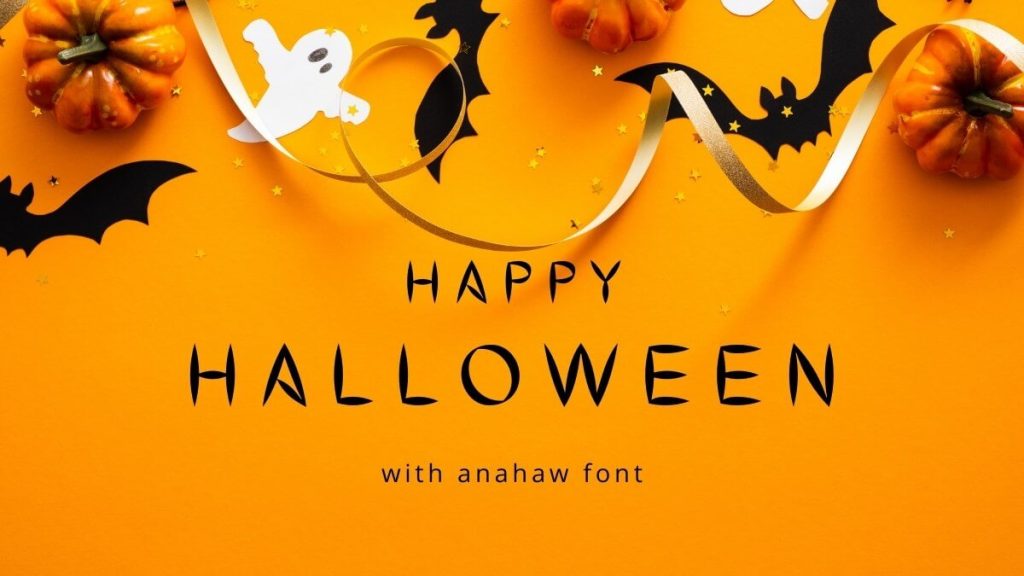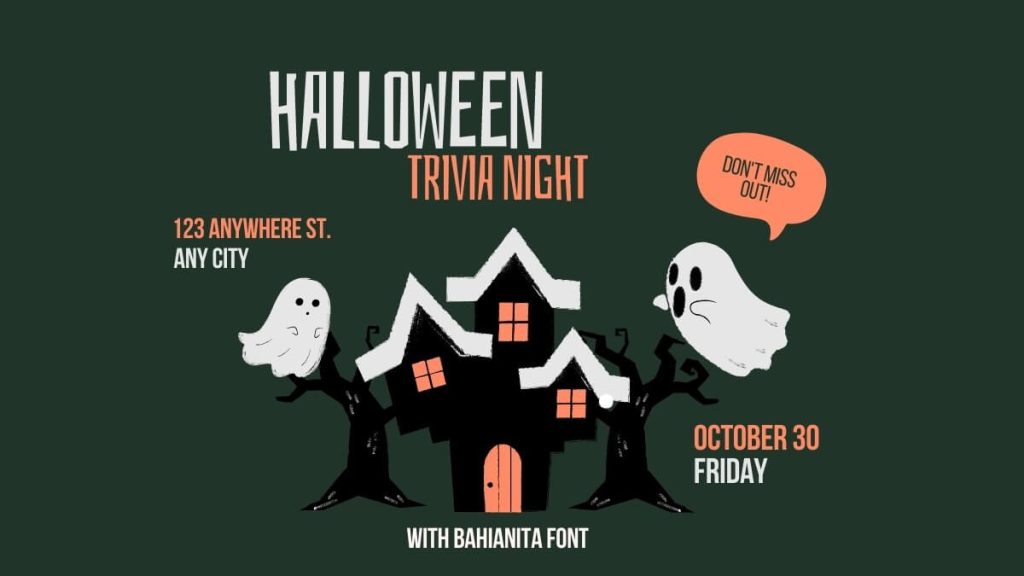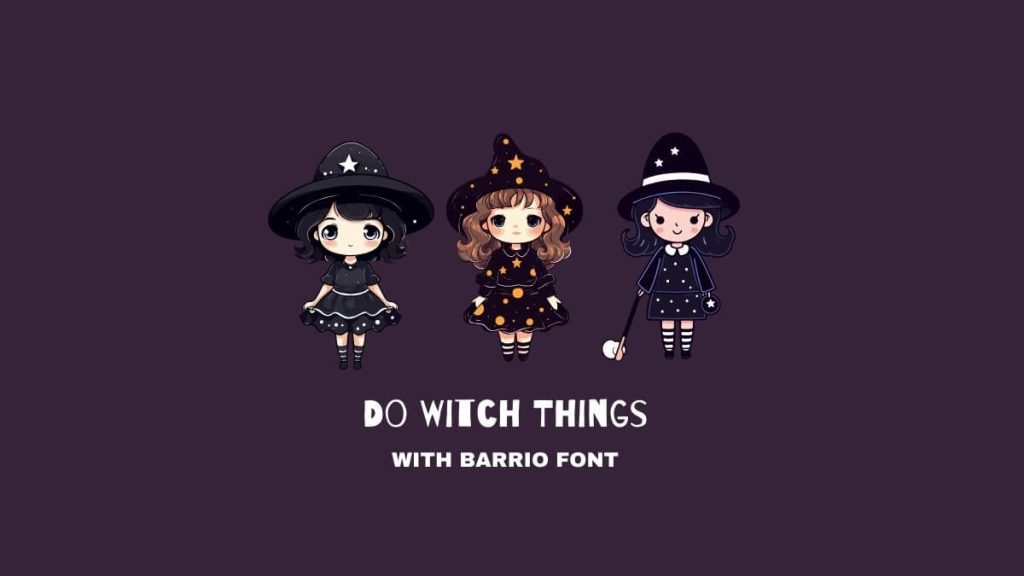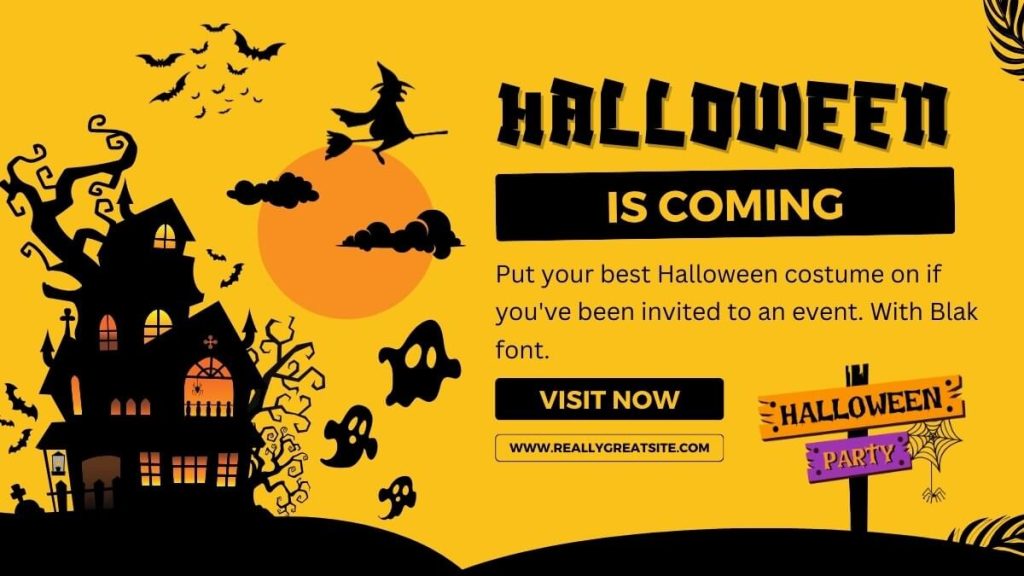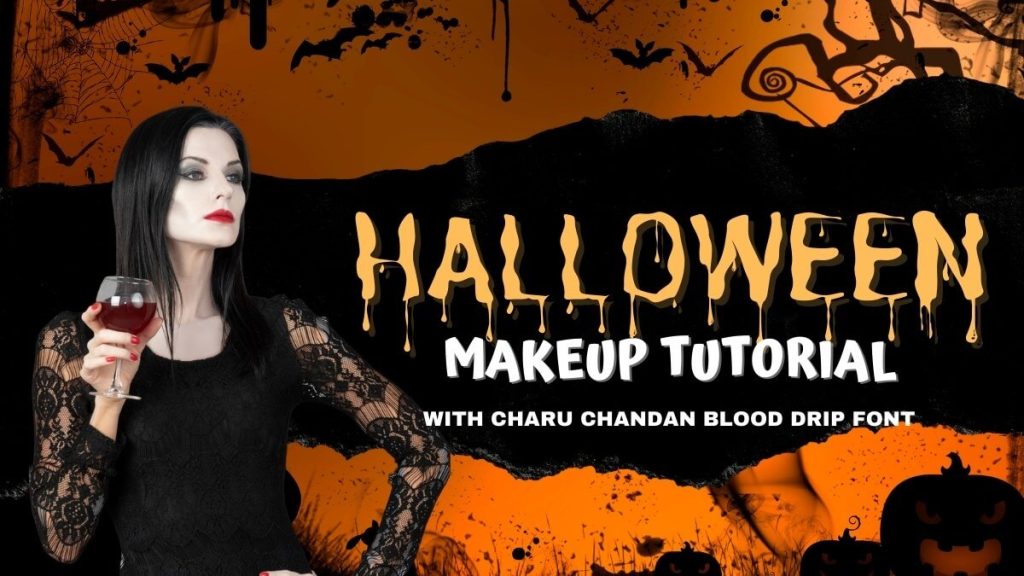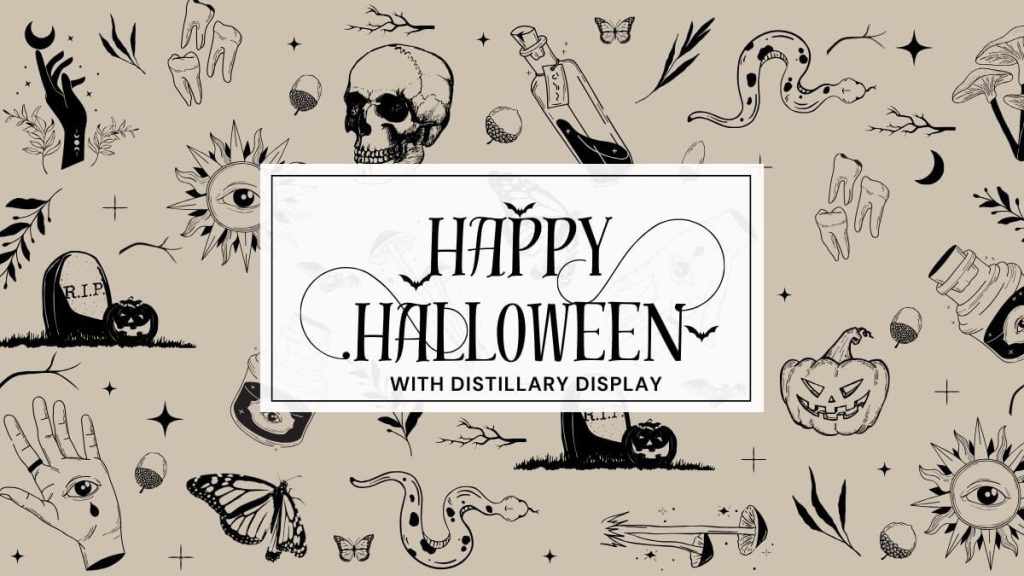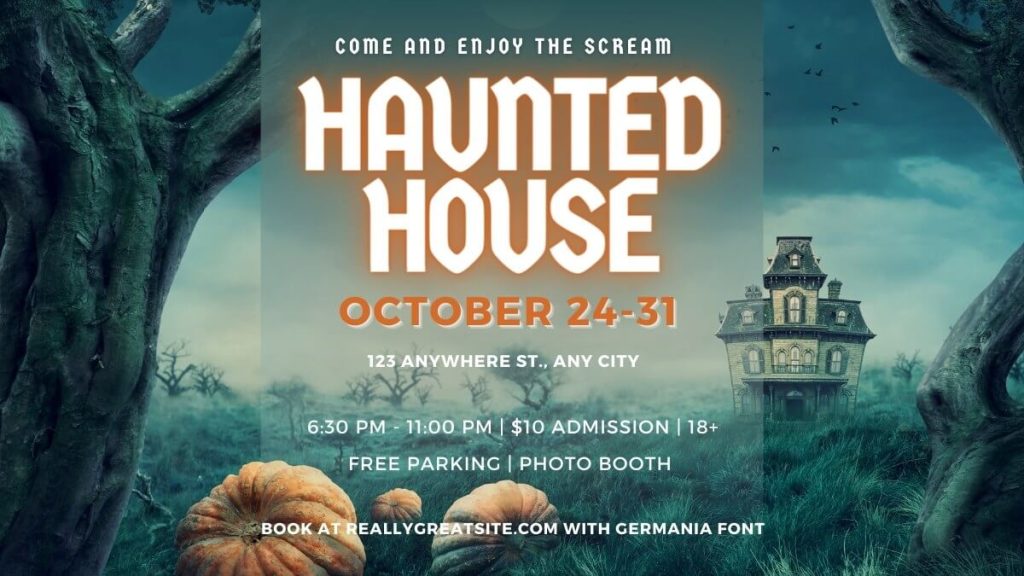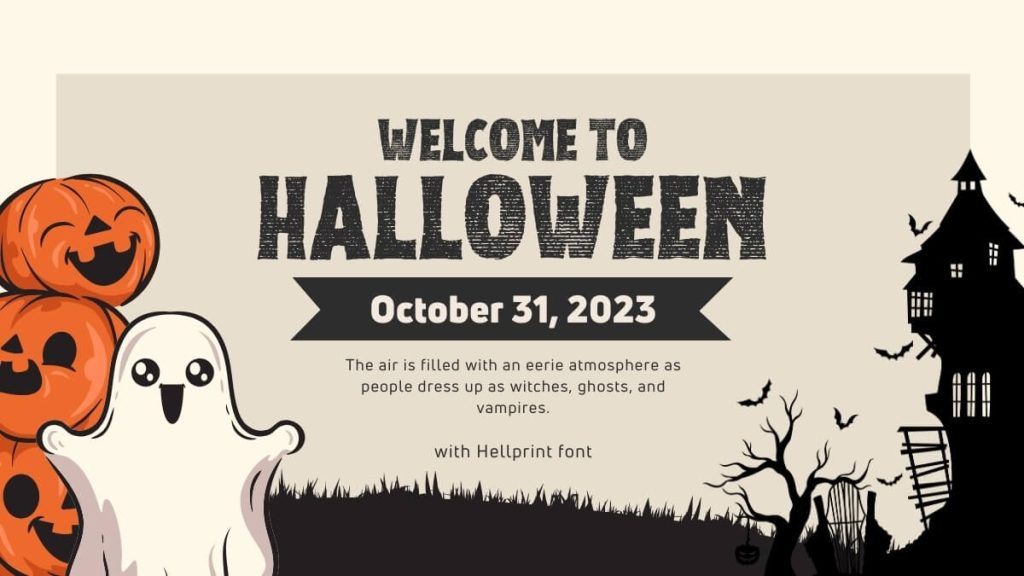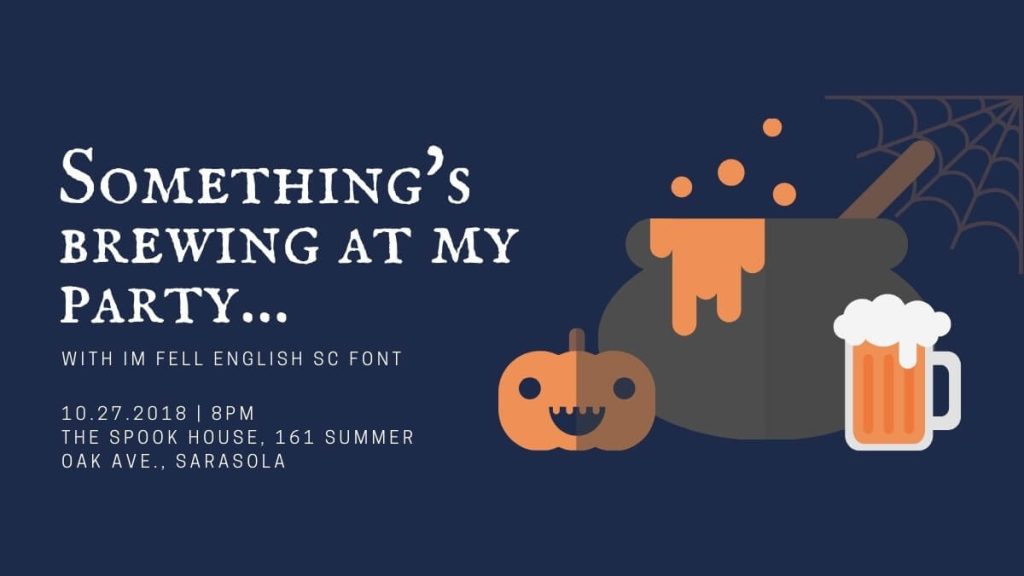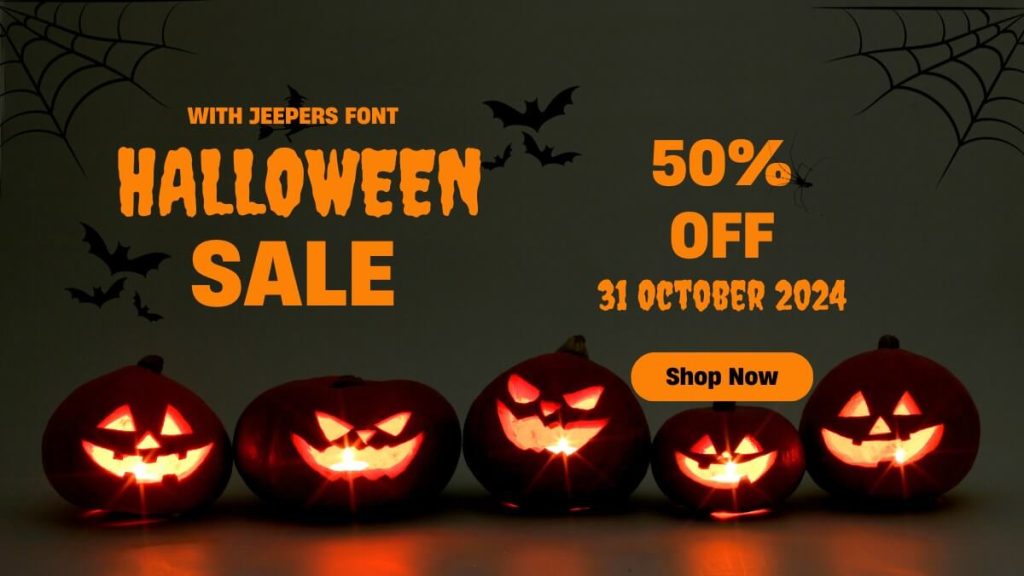
37 Free Spooky Canva Halloween Fonts That Scare You Out of Your Seat
In this post, you will find a spooky list of free Halloween fonts on Canva.
Some of these fonts for Halloween are truly creepy, but some may look like modern fonts that, when used with graphics, can make the design scary enough to have a Halloween feel.
My favorite, scariest font is Shlop, #33. There’s no need to add extra blood-dripping effects since it’s already made for it. Go check it out: 33. Shlop
Top Free Canva Halloween Fonts That Scare You
I enjoy using this list of spooky fonts, for anything scary, gothic and graphics that need some dark mood.
These can be used on their own, but best used with text effects and creepy images you can find in Canva.
1. Abys
2. Aloja
3. Anahaw
4. Ahsing
5. Aprila
6. Art Nuvo Letterpress
7. Bahianita
With its bold design and lively character, Bahianita is a great choice for festive Halloween-themed designs on Canva.
8. Barriecito
With its ransom note style, Barriecito brings a playful design with hand-drawn characters, perfect for conveying spooky themes in a lighthearted manner. It’s a whimsical font that adds a spooky touch to your Halloween-themed projects on Canva.
9. Barrio
10. Blak
11. Butcherman Caps
12. Charu Chandan Blood Drip
13. Copperplate Gothic 32 BC
14. DG Forsha
15. Distillery Display
16. Drunken Hour
17. Germania One
18. Gulfs Display
19. Hellprint
20. Hertical Serif Texture
21. IM Fell English SC
22. Jeepers
23. Kirang Haerang
24. Kust
25. Lacquer
26. Max Somsin
27. Moonlight
28. Nectarine
29. Pirata One
30. Pony Club
31. Rubik Beastly
32. Savage
33. Shlop
34. Stella